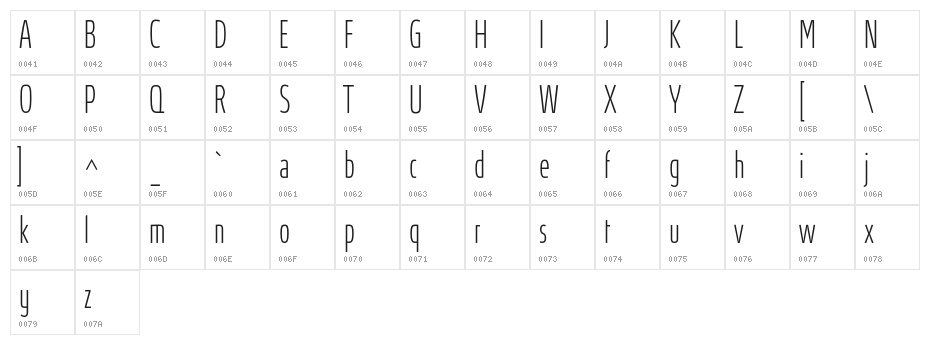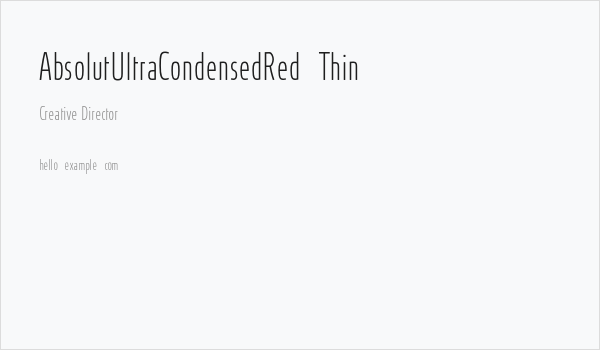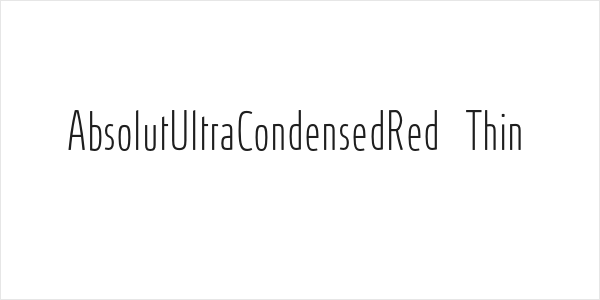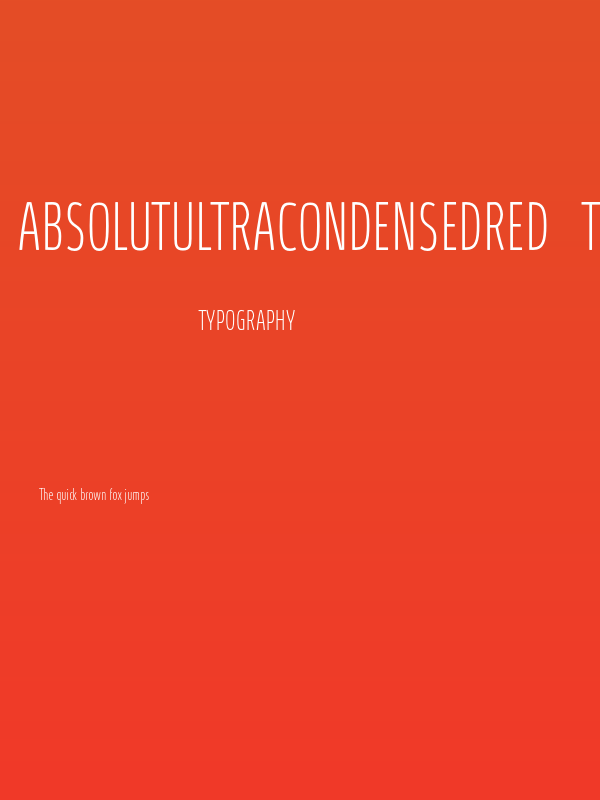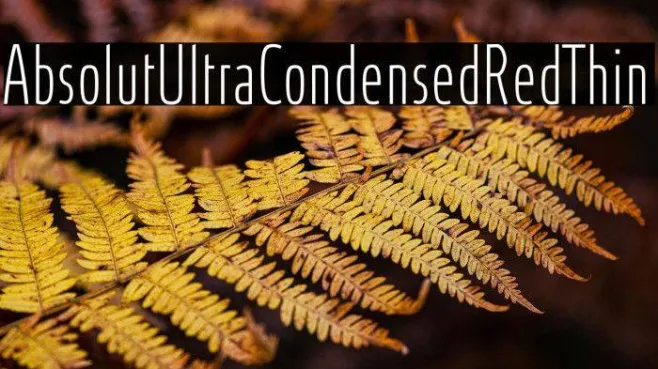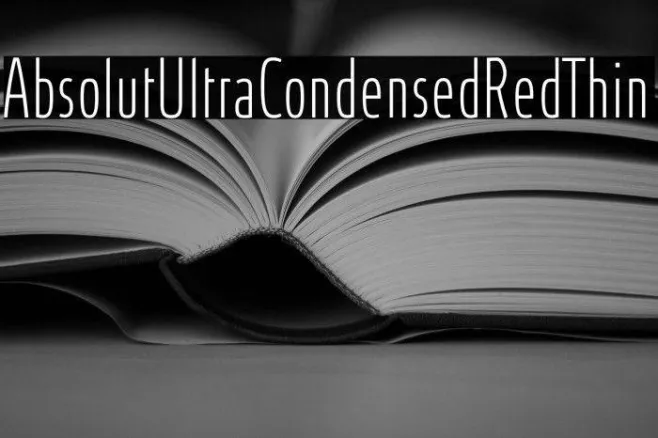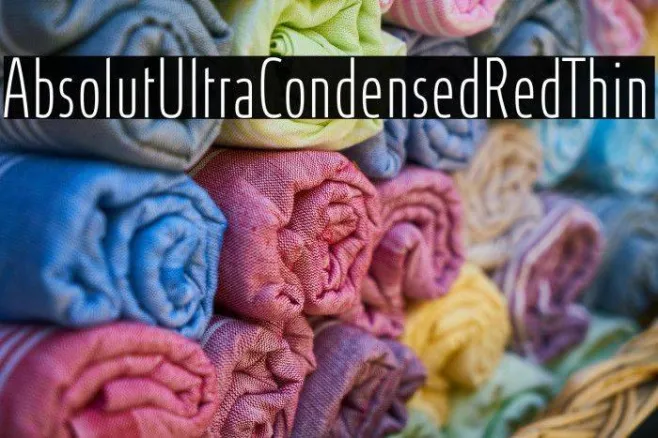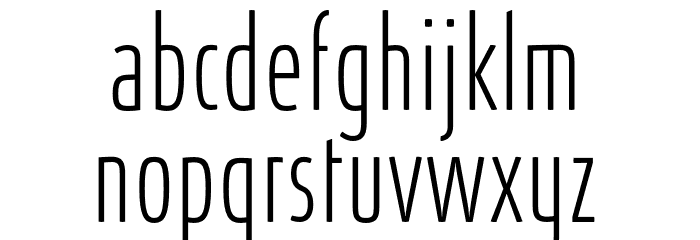
AbsolutUltraCondensedRed-Thin Font
AbsolutUltraCondensedRed-Thin Description
This font features an ultra-condensed style with a thin weight, offering a sleek and modern appearance. The characters are tall and narrow, creating a streamlined look that is both elegant and minimalistic. The uppercase and lowercase letters maintain a consistent height ratio, contributing to a uniform and cohesive design. The font's thin strokes and tight spacing make it ideal for projects that require a sophisticated and contemporary aesthetic. Its clean lines and lack of decorative elements emphasize clarity and readability, making it suitable for a variety of design applications.
| Proposed Projects | Ideal for fashion magazines, luxury branding, minimalist posters, and modern web design. |